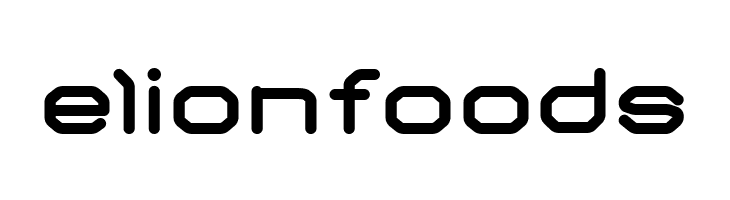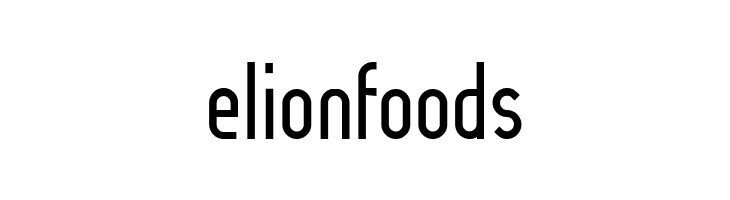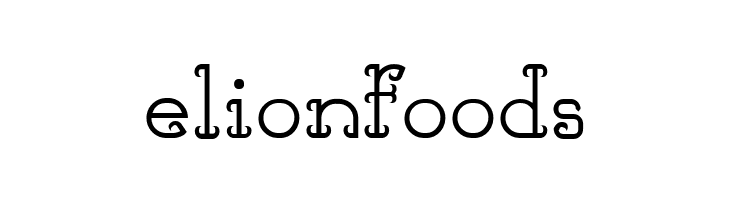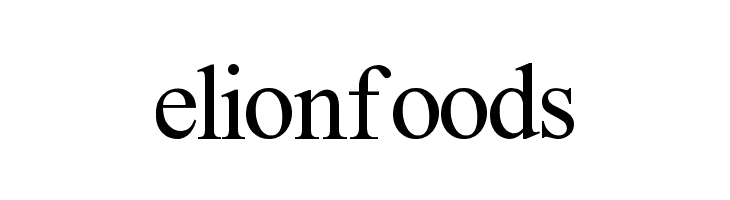
A modern, geometric font with a tall, narrow design and consistent stroke width.
A modern, geometric font with a futuristic and sleek design.
A whimsical and decorative font with playful embellishments on each character.
A classic serif font with sharp serifs and balanced proportions.